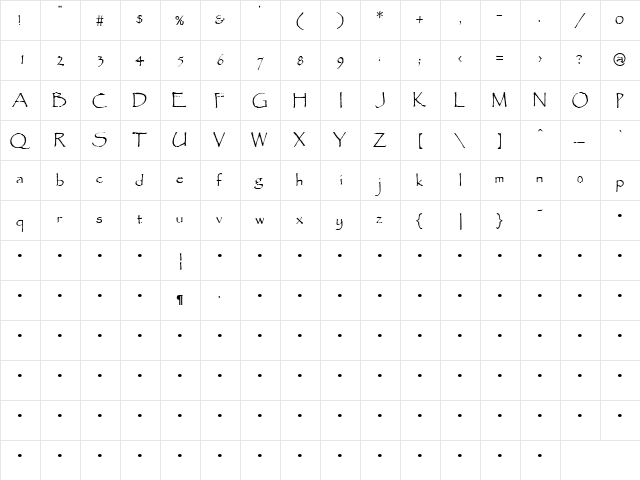
Axlerod 3 Regular
Design Context for Axlerod 3 Typeface
Axlerod 3 is a composed and adaptable typeface that performs quietly and consistently across a wide range of design contexts.